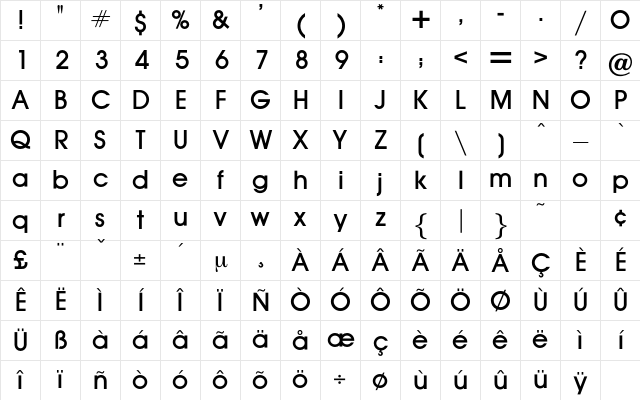
AuxinMedium Regular
Design Context for AuxinMedium
AuxinMedium is a composed and adaptable typeface that performs quietly and consistently across a wide range of design contexts.
Pro Tip: Use AuxinMedium in both headline and body roles to test its range before committing to a single application.